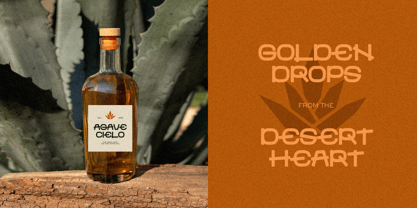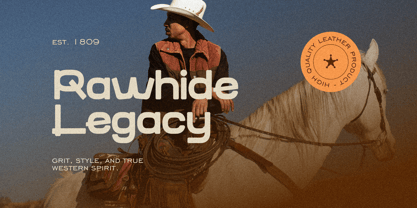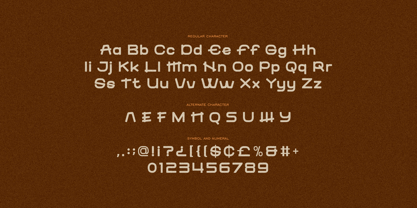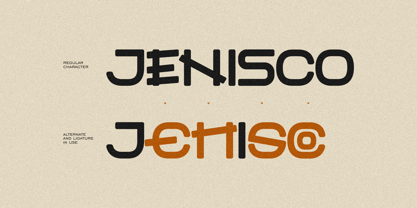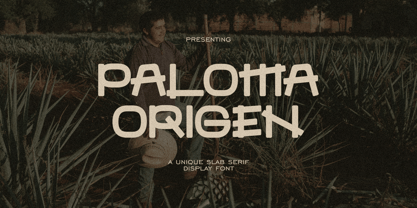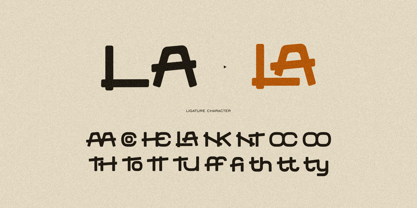
Paloma Origen
by Imoodev
The Paloma Origen Font Family was designed by Aulia Savira Putri and published by Imoodev. Paloma Origen contains 1 styles. More about this family
Paloma Origen is a unique slab serif font serving major vintage-meets-handcrafted vibes. It’s a slab serif, which means it’s rocking thick, blocky “feet” (aka serifs) on the letters, but with a super quirky twist. The shapes have a slightly wavy, organic feel—like someone chiseled them out of stone in an old Western.
Each letterform is bold and chunky, so it’s perfect for display use (think logos, headlines, perfect for branding, artistic titles, or packaging). It has that warm, rustic energy you might see on a craft tequila bottle or a hip coffee shop sign.
Basically, if you need a font that screams “handcrafted heritage with a modern edge,” this is your new best friend.